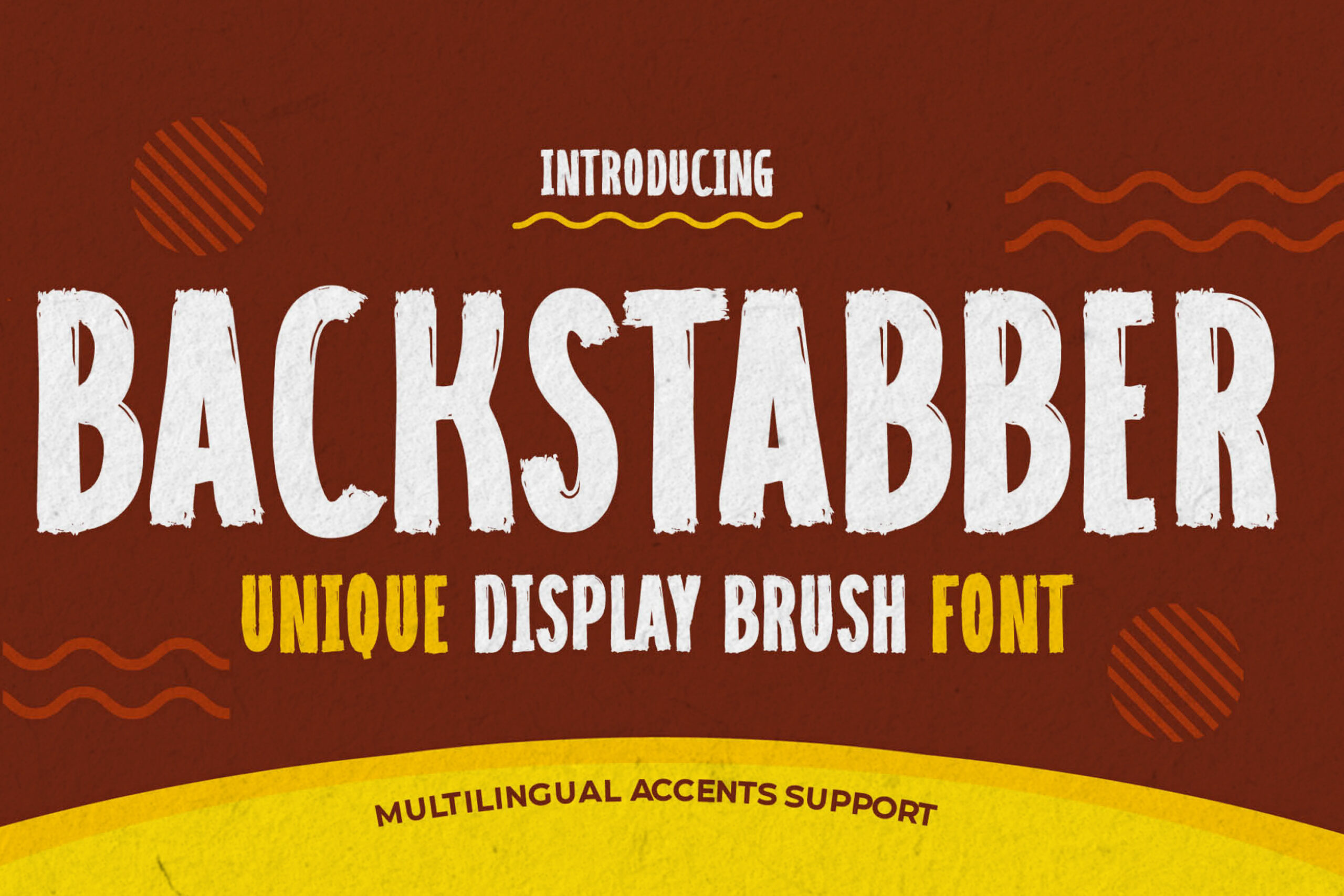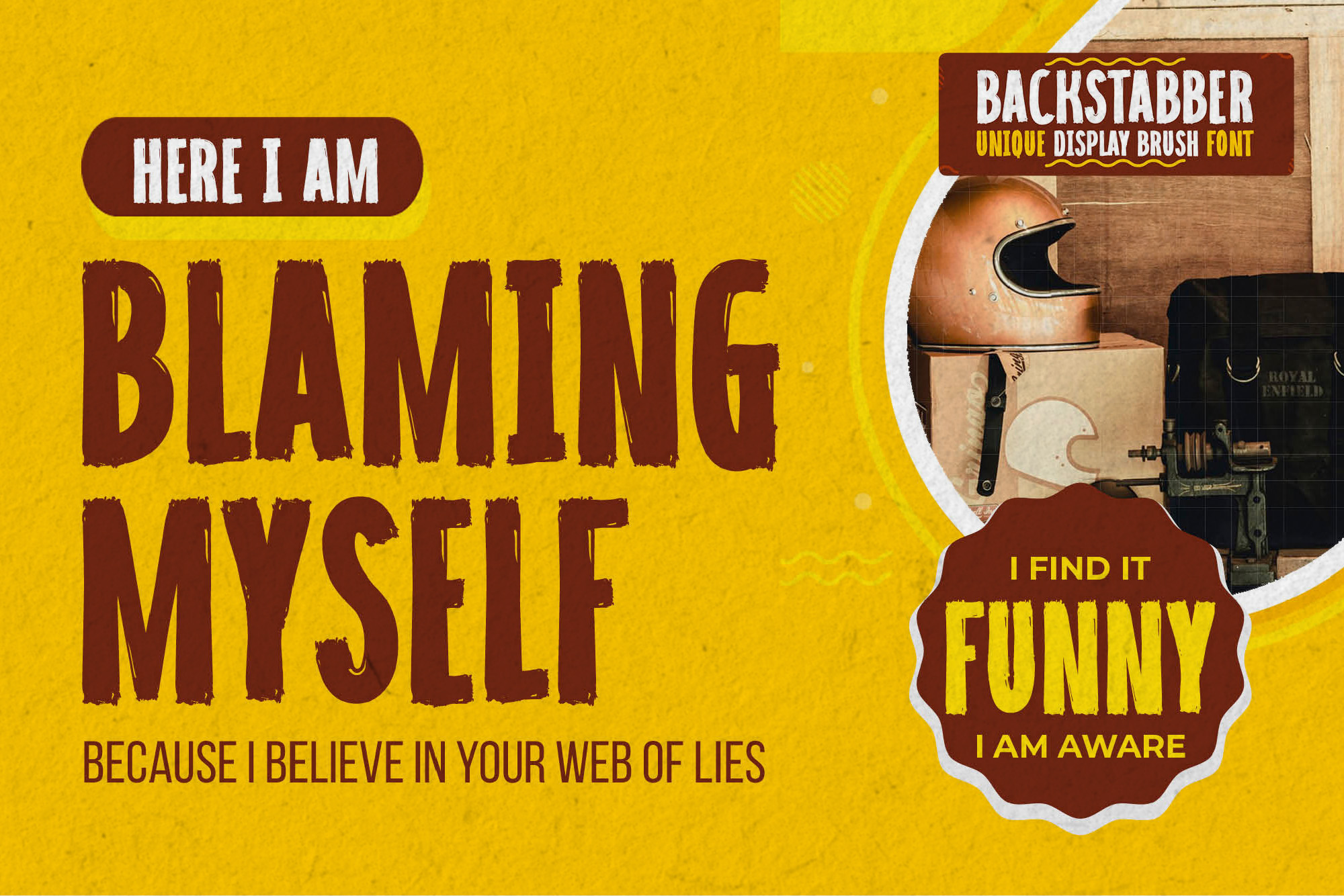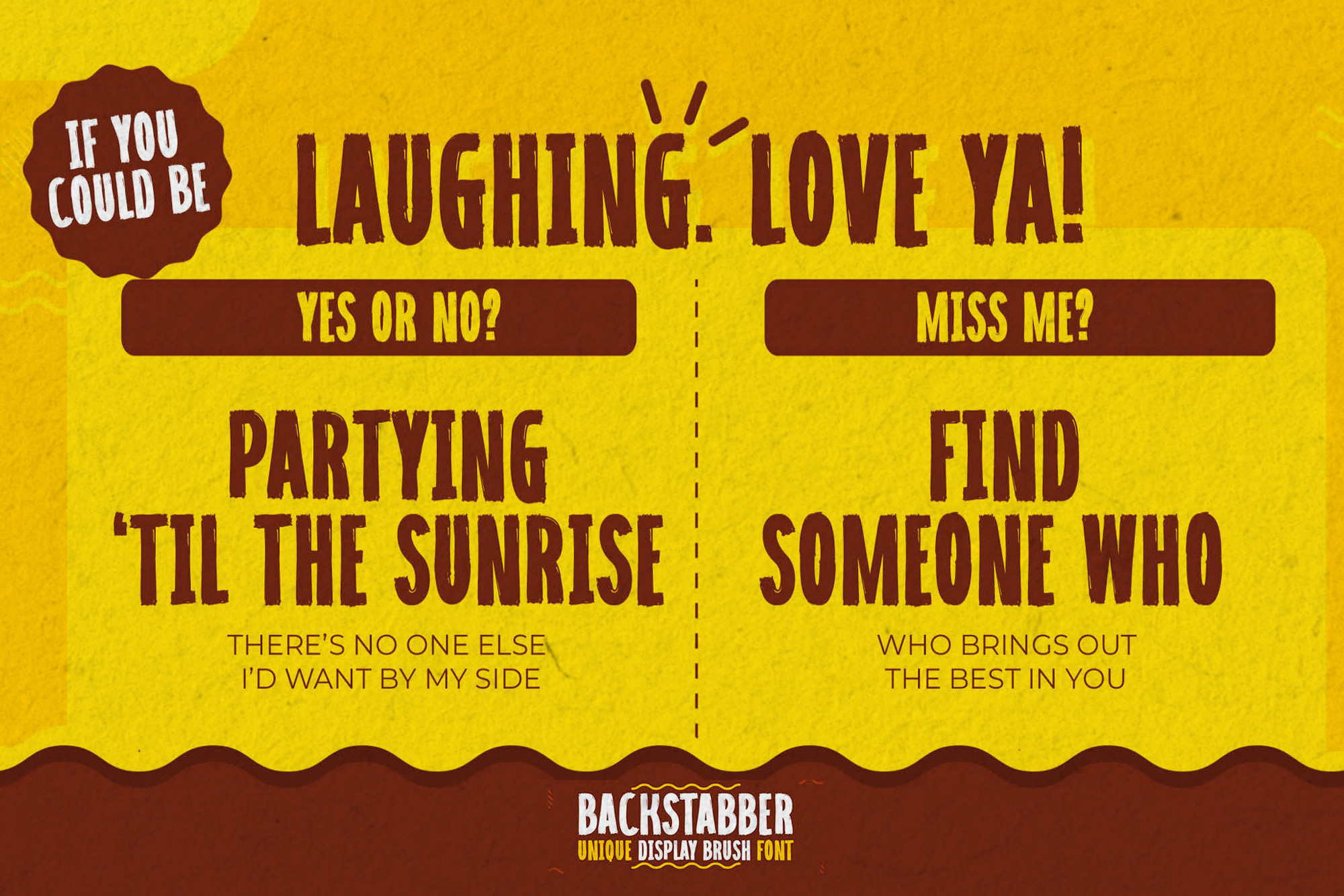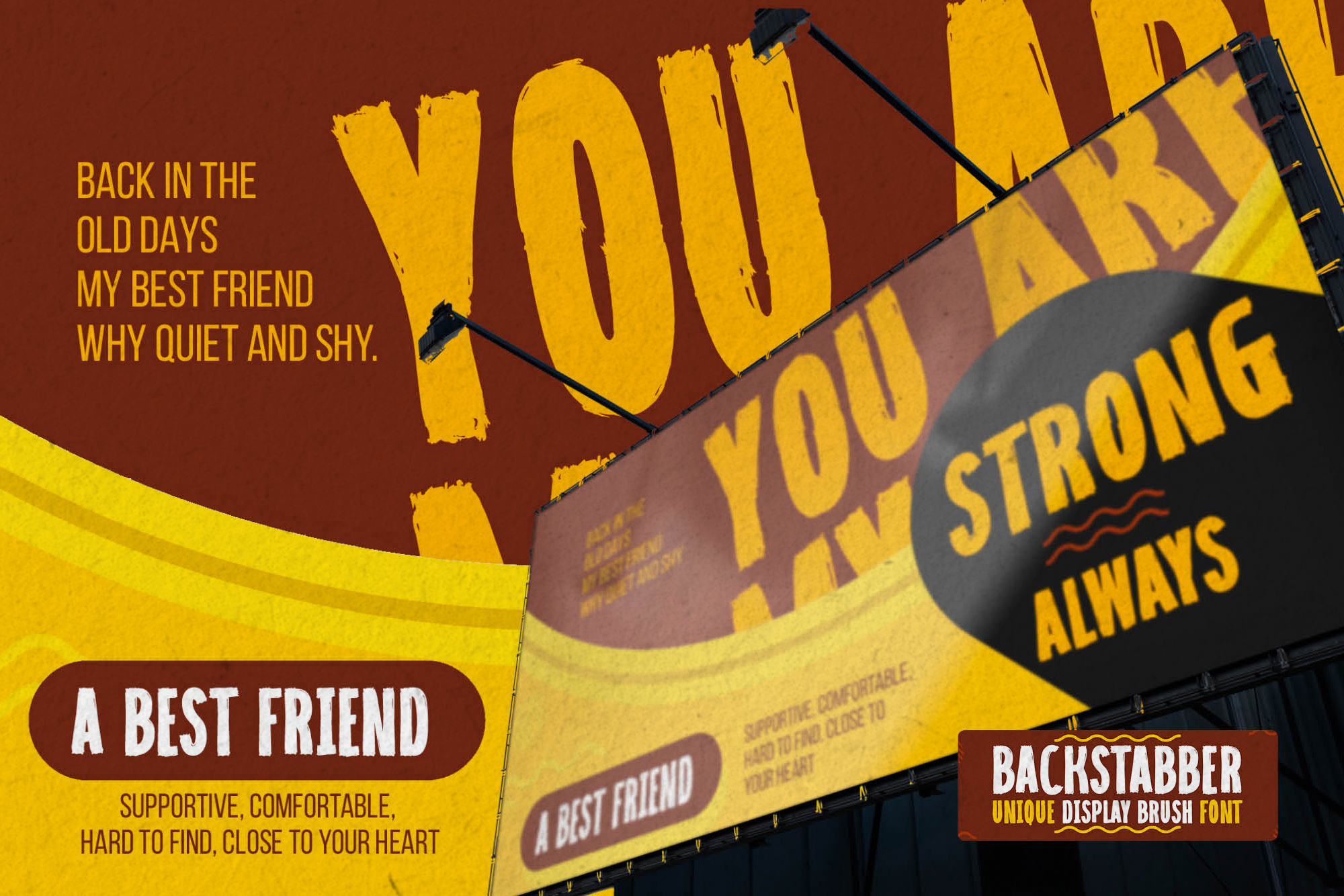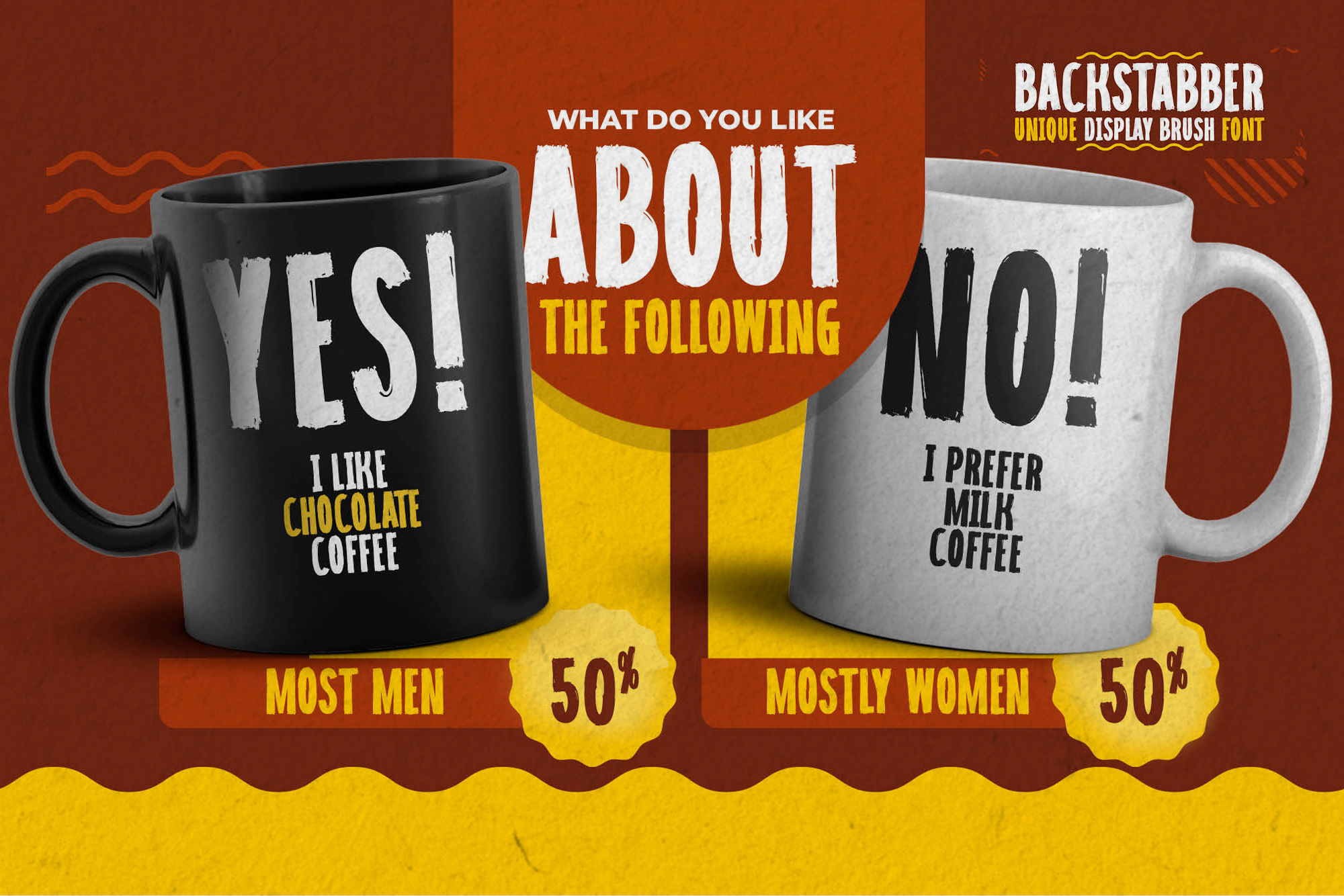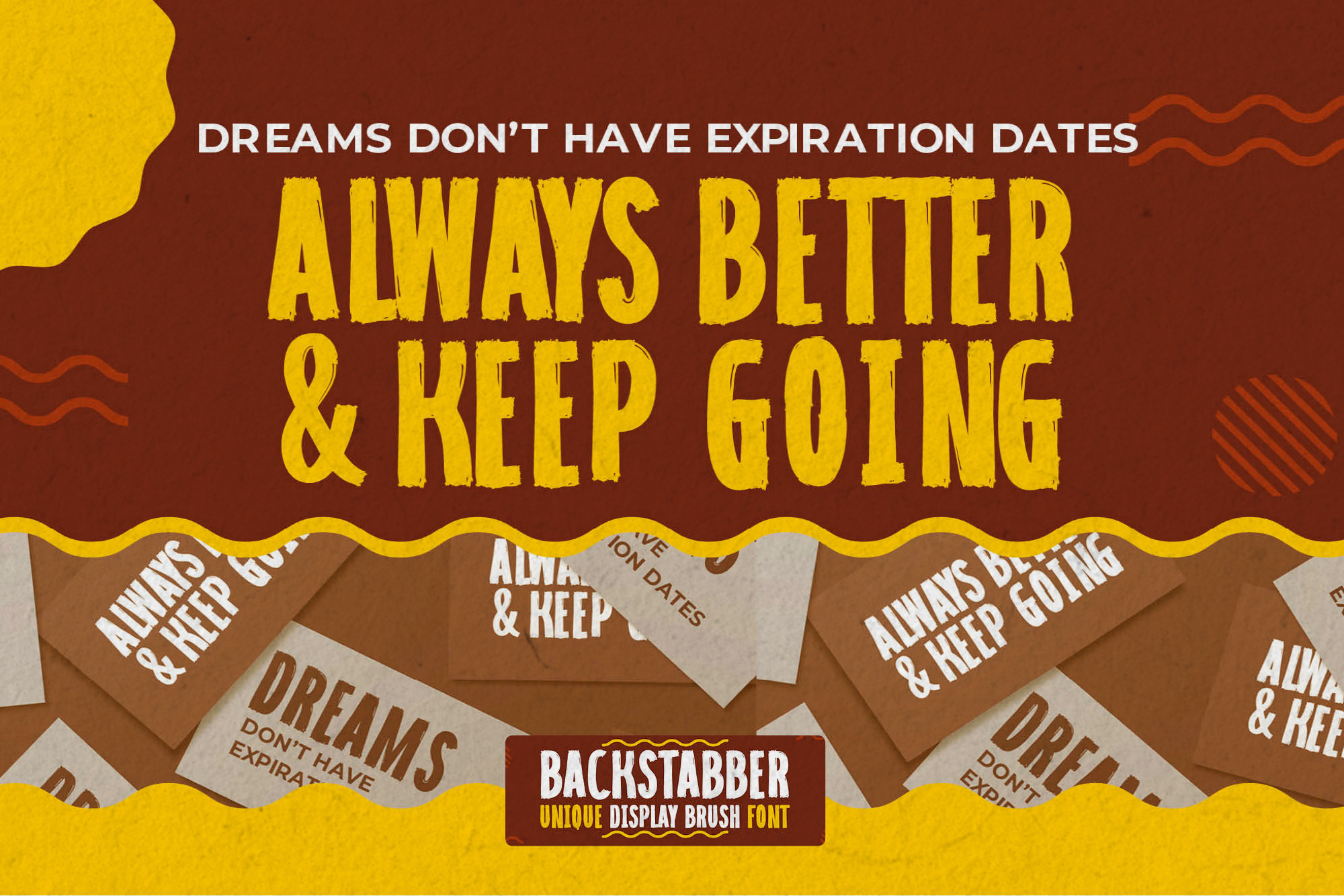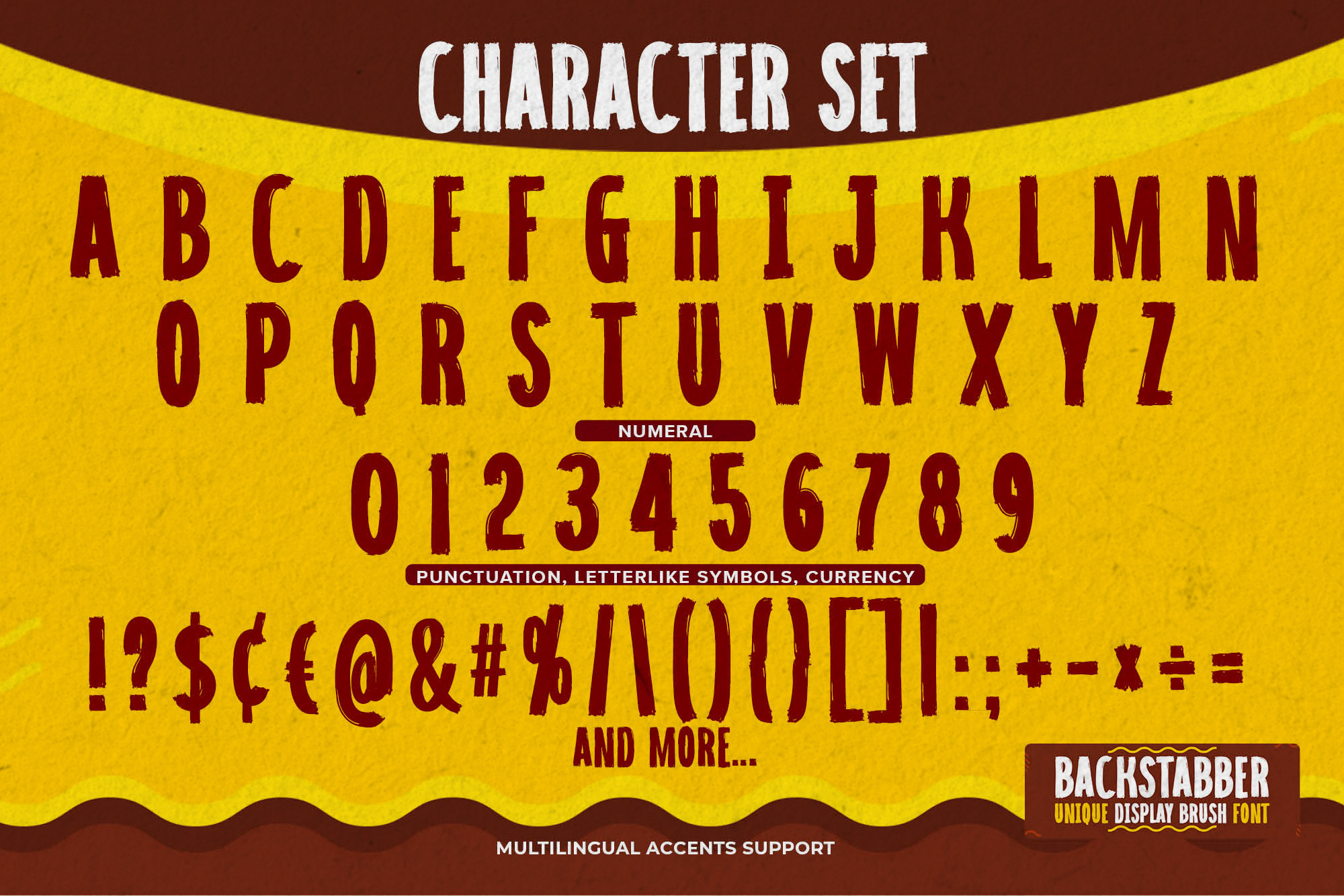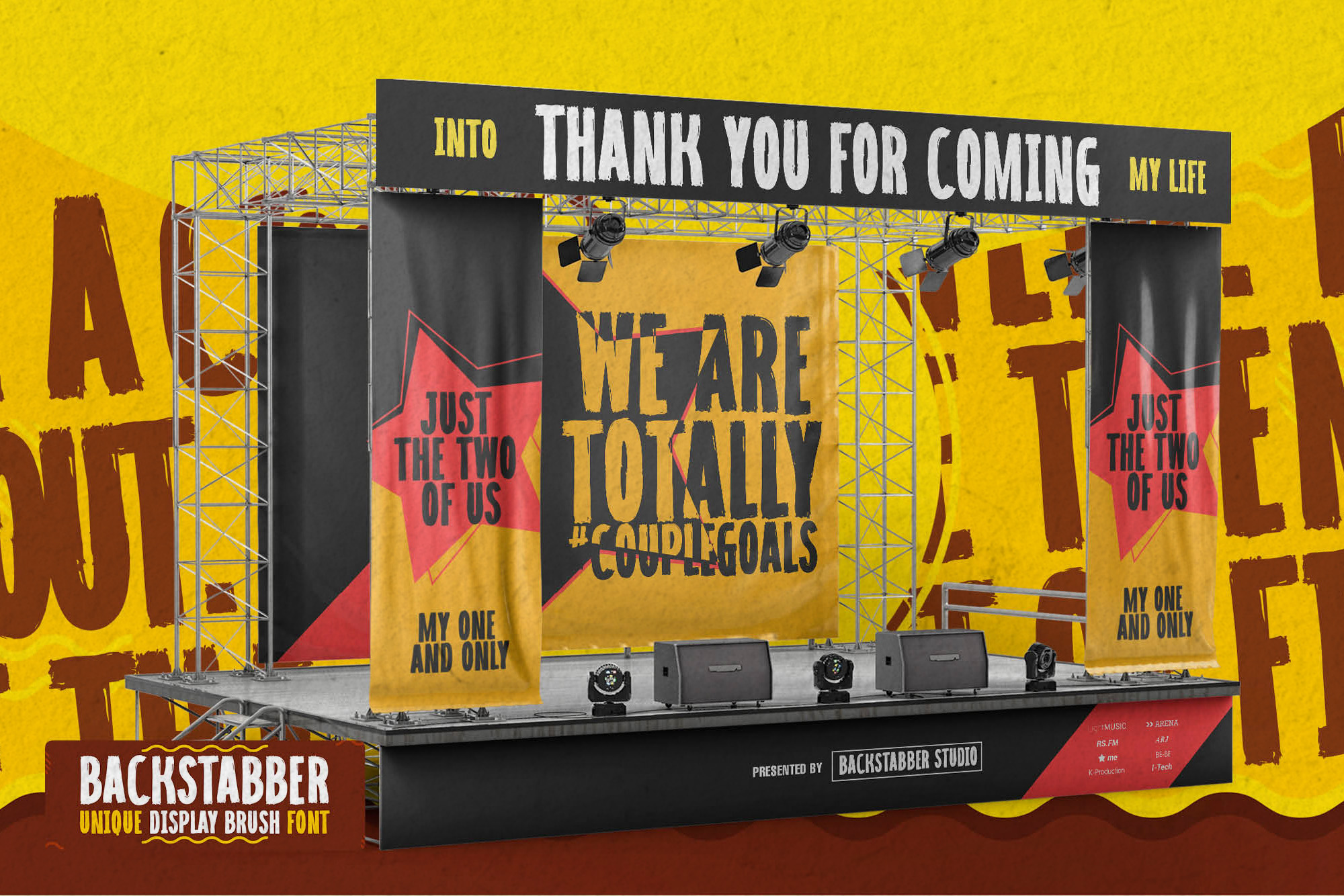
BACKSTABBER – Unique Display Brush Font, modern style and dramatic movement that is written casually and quickly.
BACKSTABBER is a natural Hand Drawn feel. This handmade font will make your design has a beautiful natural touch for each details. It is perfect for any design project as Invitation,logo, book cover, craft or any design purposes,photos, photography overlays, signs, window art, scrapbooking, tags and so much more!
That is has charming, authentic and relaxed characteristic more natural look to your text.